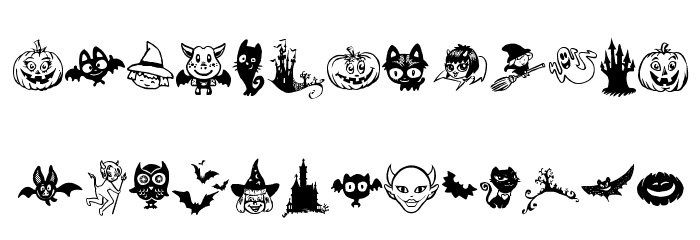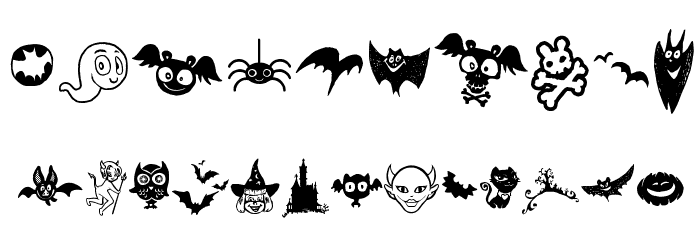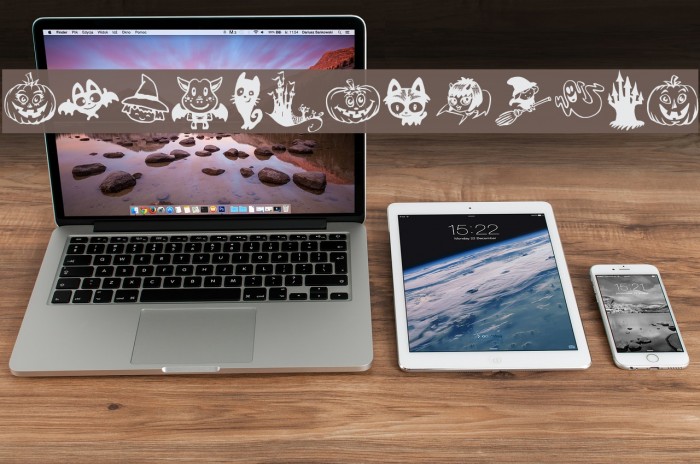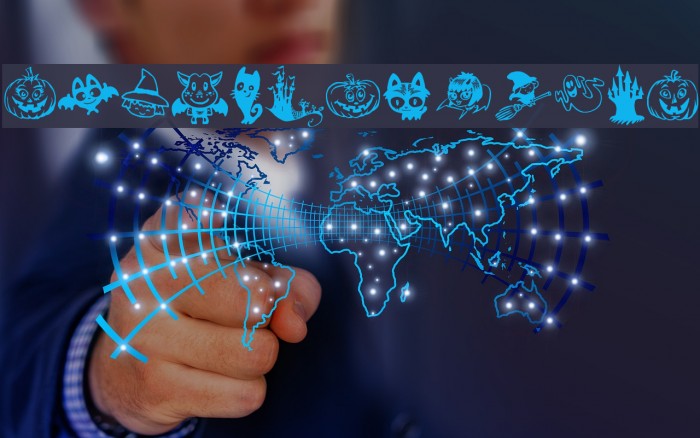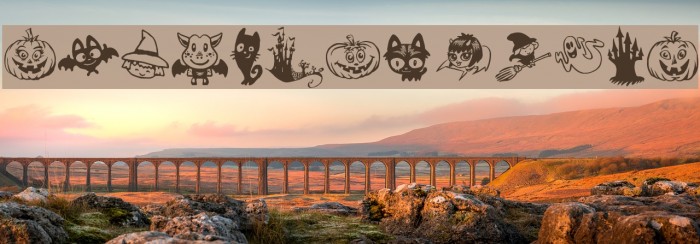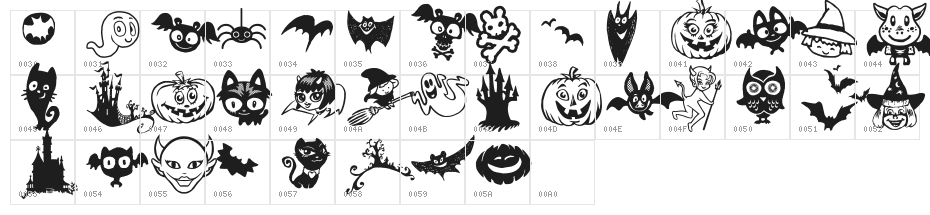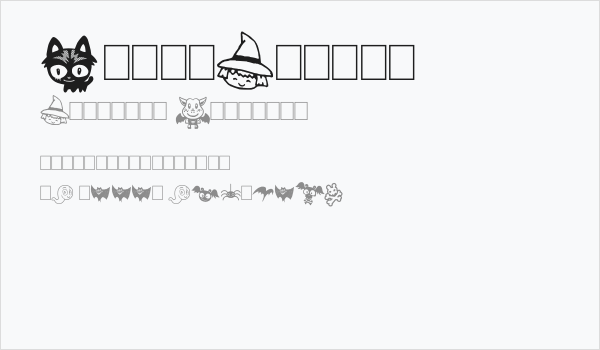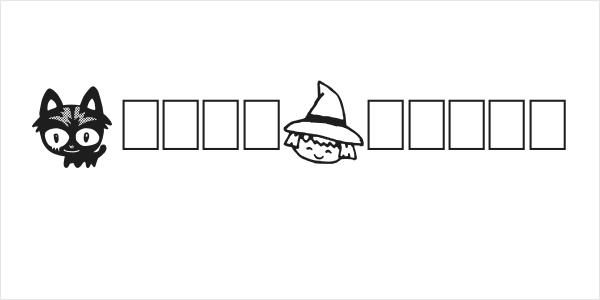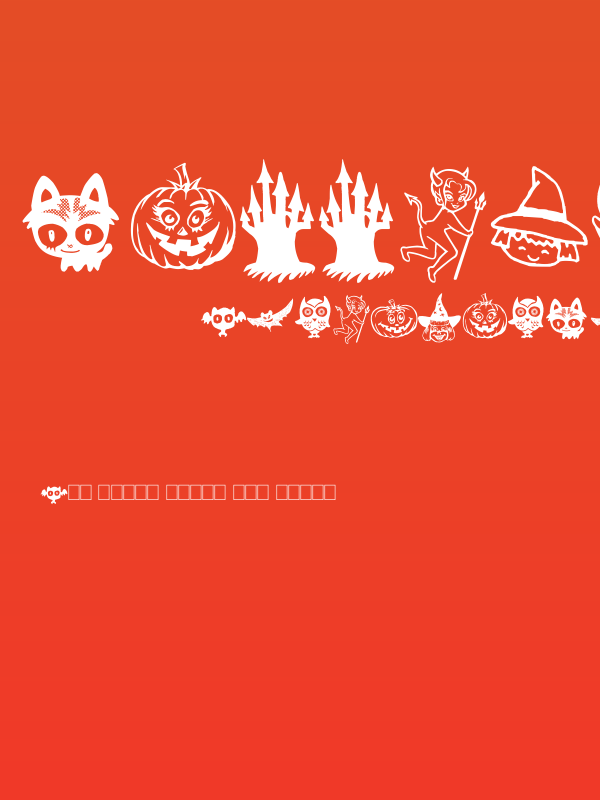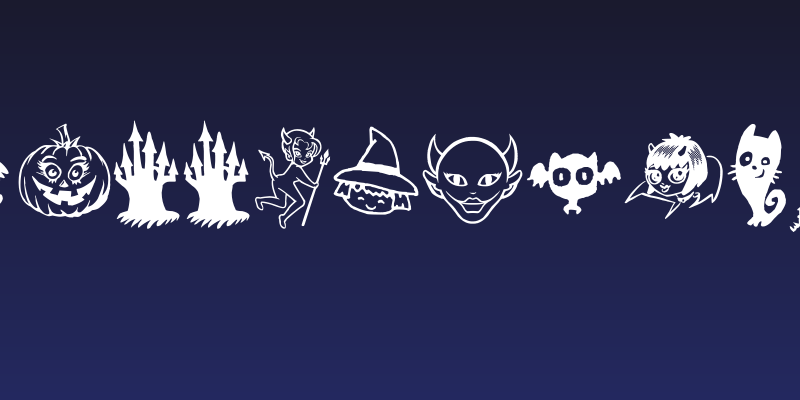
HalloCuties Font
This is a decorative font featuring a playful and spooky Halloween theme. Each character is represented by a unique Halloween-related icon, such as pumpkins, bats, witches, ghosts, and other whimsical creatures. The icons are intricately designed with a mix of bold and thin lines, creating a dynamic and engaging visual style. The font is perfect for adding a touch of Halloween spirit to any project, with its charming and slightly eerie aesthetic. The characters are well-spaced, ensuring readability while maintaining a cohesive look.
A decorative Halloween-themed font with playful and spooky icons.
- Proposed Projects: Ideal for Halloween party invitations, themed posters, children's books, and festive decorations.